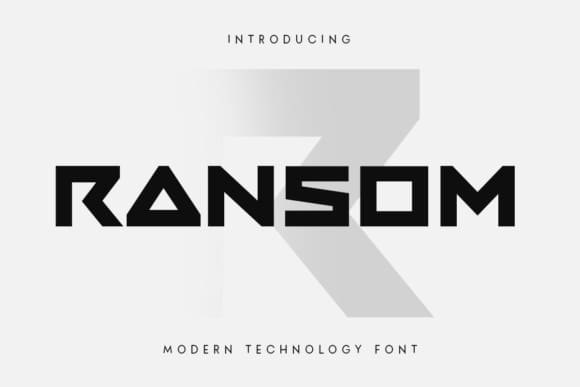
Ransom Font
Ransom Font is a modern and cool display font.  Perfectly fit for branding, logo, wedding things, greeting cards, fashion, lookbook, marketing promotion, anytime you want to look fancy elegant but still casual. Add it to your creative projects and enjoy the results!